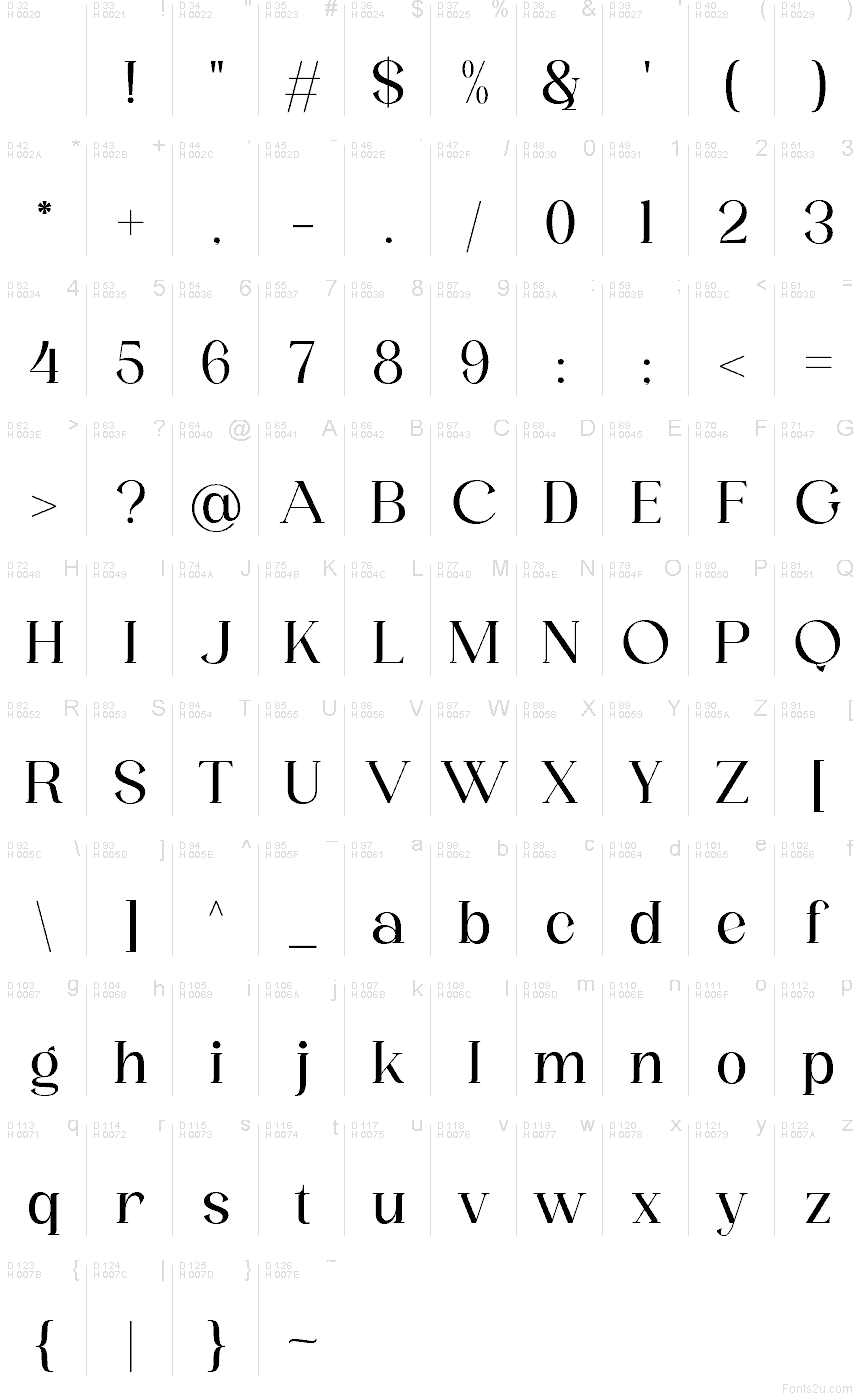
Zanor Regular
Zanor font by Ardyana Types is a free elegant serif typeface with a dramatic, sculpted feel. The letters have slim, refined stems that flare into bold, inky curves, giving each word a sense of weight and poise. Sharp edges meet smooth bowls, so text feels both polished and slightly edgy—like a fashion headline caught mid-stride.
Using Zanor, titles and wordmarks instantly gain a luxurious, editorial mood that works beautifully for magazine covers, fashion branding, beauty packaging, posters, and upscale invitations. This free font thrives at larger sizes where its nuanced shapes can really breathe; pair it with a simple geometric sans for body text to keep layouts clean and modern.